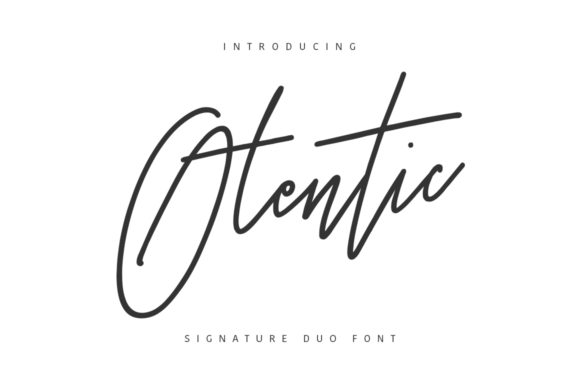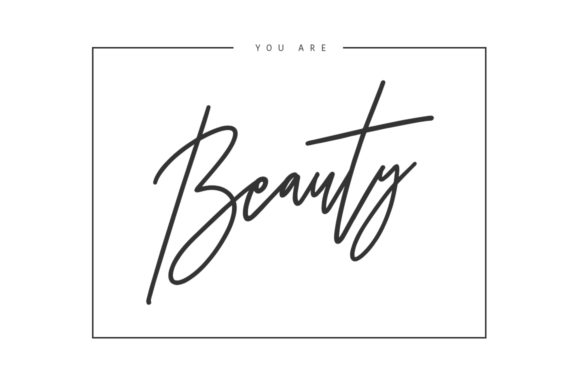
Otentic Font
Otentic is a fancy script font. It features chunky and extended characters that will look particularly adept when used in logos, branding, packaging design, and much more. This masterfully designed typeface is a true must-have.